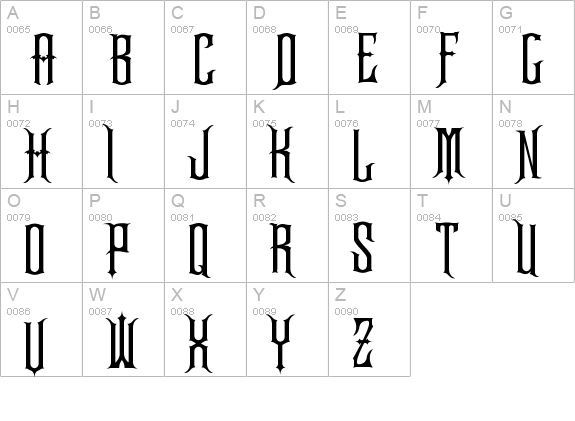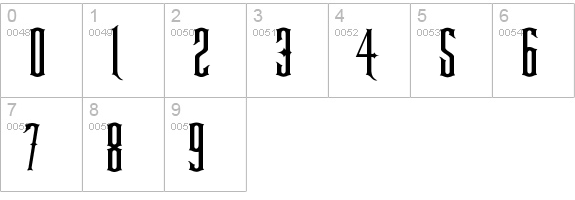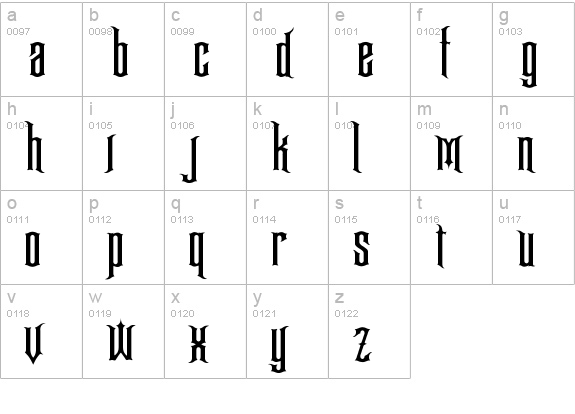
Gracey's Curse Font Details
Gracey's Curse font is a hauntingly beautiful typeface that captures the essence of mystery and elegance. With its intricate details and captivating curves, this font exudes a sense of enchantment and sophistication. Perfect for adding a touch of magic to your designs, Gracey's Curse font is sure to leave a lasting impression on your audience. What makes Gracey's Curse font even more appealing is that it is available for free download at FontsMarket.com. This means you can easily add this mesmerizing font to your collection without any cost. Whether you're working on a spooky Halloween project or looking to infuse a touch of whimsy into your designs, Gracey's Curse font is the perfect choice. Download it today and let your creativity run wild with this enchanting typeface.